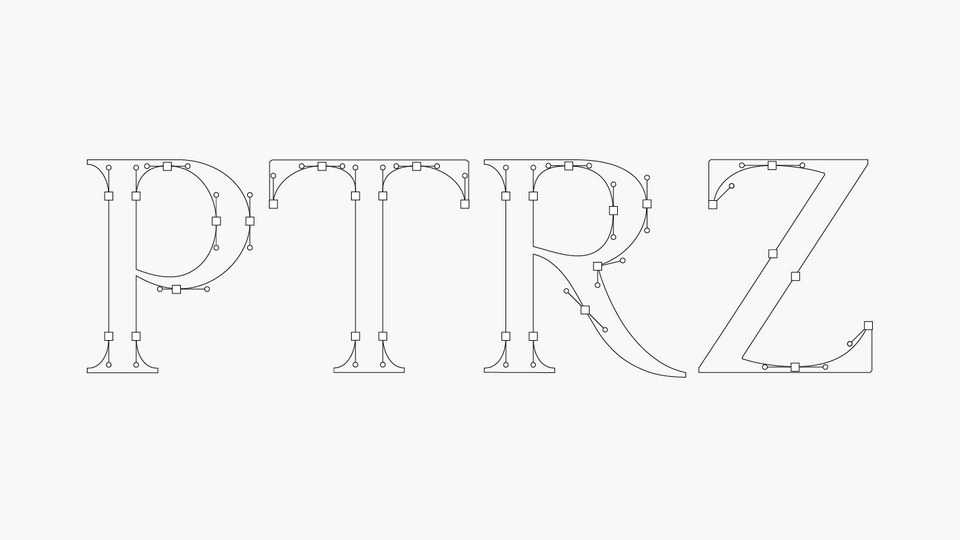
Download Patrízia font, a humanist serif typeface inspired by the Renaissance era. Patrízia carries a modernity expressed in its serifs and ligatures based on Italian architecture.
Designer: Guilherme Bidarra